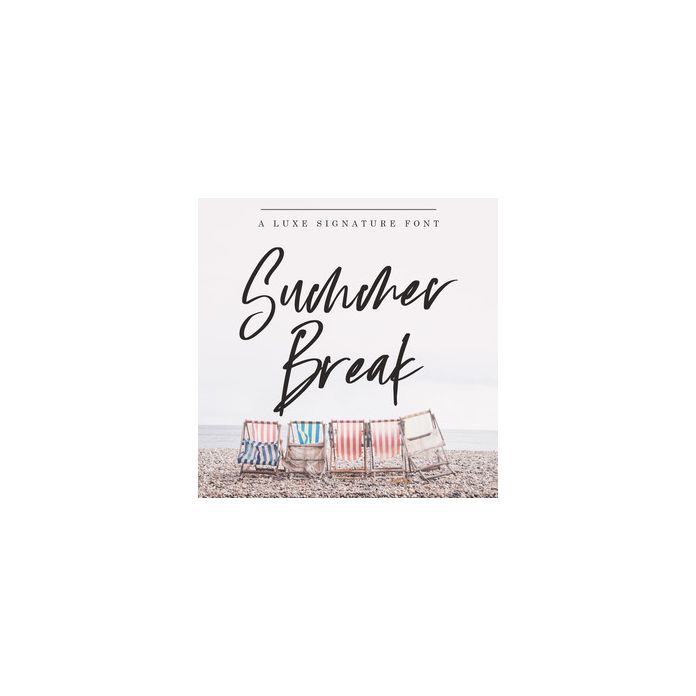
Summer Break is a lively signature font intentionally crafted to give your designs new life! And it comes with a full alternate set of characters. This typeface is designed to make you feel like you're on the beach with a salty margarita in your hand. So enjoy!